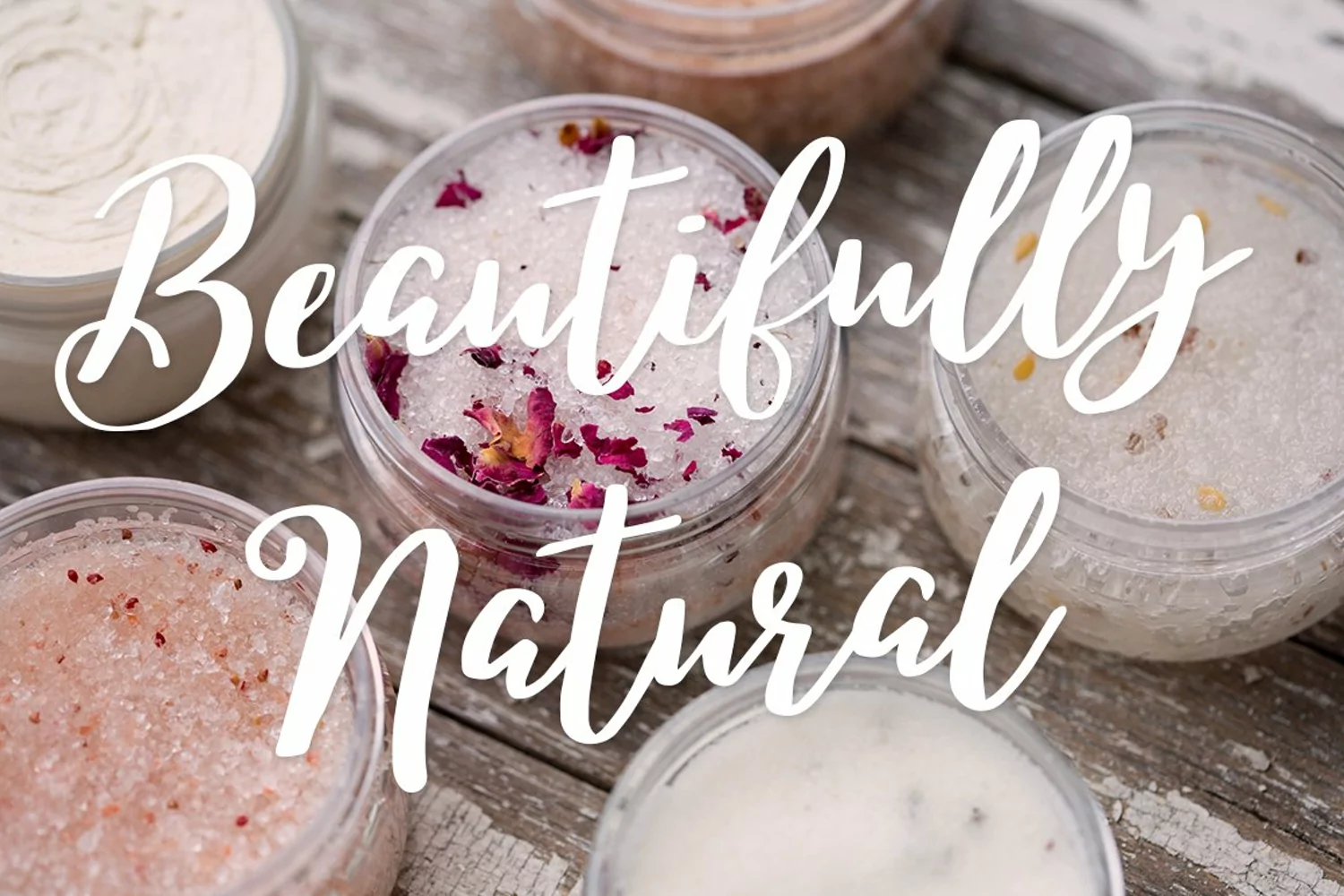
Caitlin Script
This casual and bold brush script font is perfect for merchandise design such as t-shirts, mugs, tote bags and any advertising campaign stuff. It's clear, smooth and easy to read!